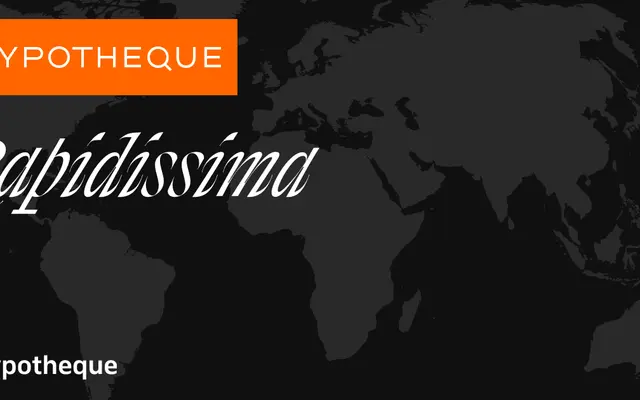
Rapidissima
A grotesque sans-serif family from Typotheque available in five weights with matching italics and a variable font axis.
Rapidissima offers five weights from Regular to Black, each with a corresponding italic in the Rapida subfamily, covering a broad range for text and display work. A variable font version extends flexibility further. Latin script coverage is confirmed, and the family appears suited to editorial and branding contexts where a clean, functional grotesque is required.
Rapidissima is a sans-serif with a grotesque character, offered in a range of weights with italics and variable font support, consistent with a contemporary grotesque text family.